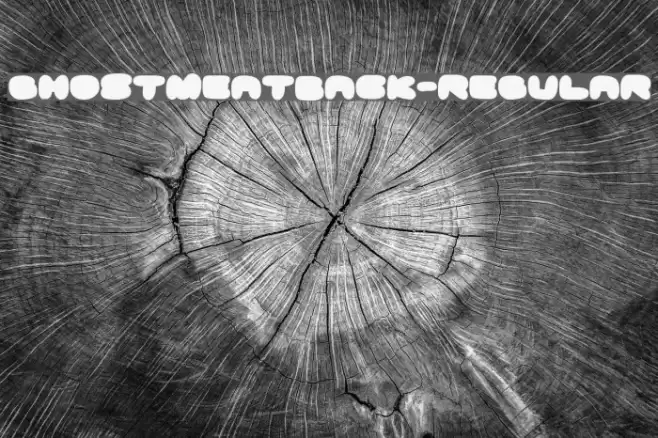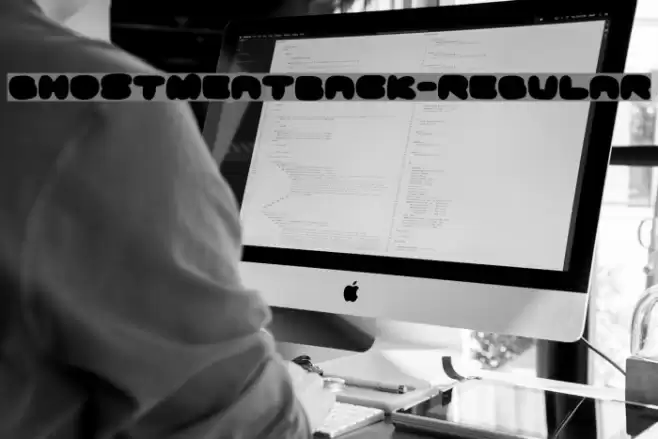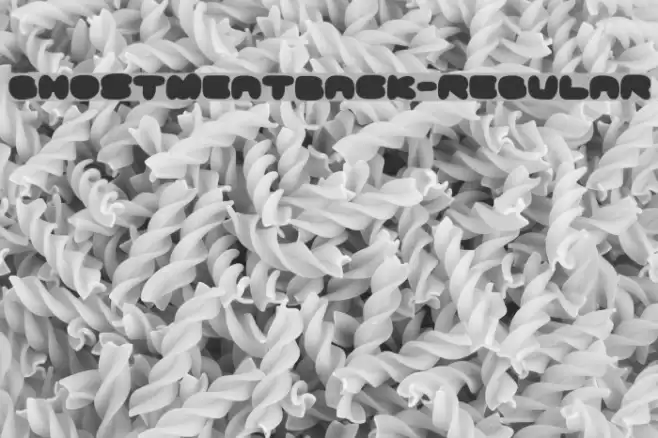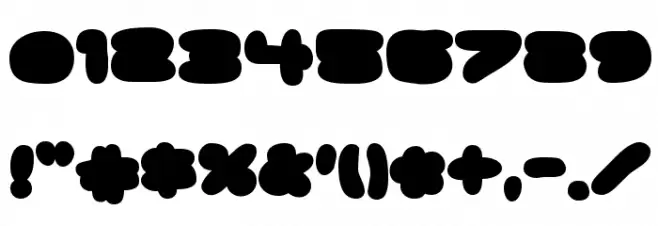
GhostmeatBack-Regular Font
GhostmeatBack-Regular Description
This font features a bold and playful design with rounded, blob-like characters that give it a unique and eye-catching appearance. The letters are heavily weighted, creating a strong visual impact. Each character is distinct yet maintains a cohesive style throughout the alphabet. The font's whimsical nature makes it suitable for creative and informal applications. Its rounded edges and thick strokes contribute to a friendly and approachable feel, making it ideal for projects that aim to convey fun and creativity.
A bold, playful font with rounded, blob-like characters from Uncategorized fonts.
- Proposed Projects: Ideal for children's books, playful branding, posters, and creative event invitations.
- Overall Style: Playful, Whimsical
- Use Case: Logos, Posters, Creative projects